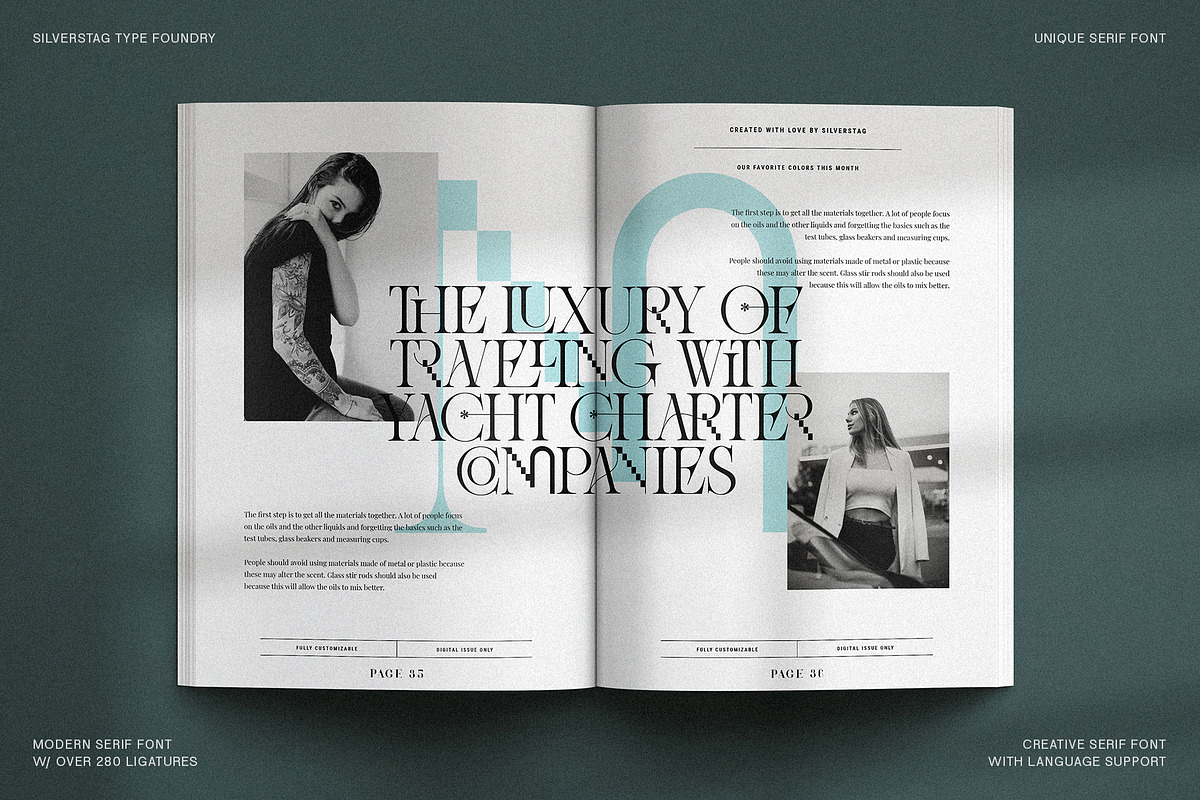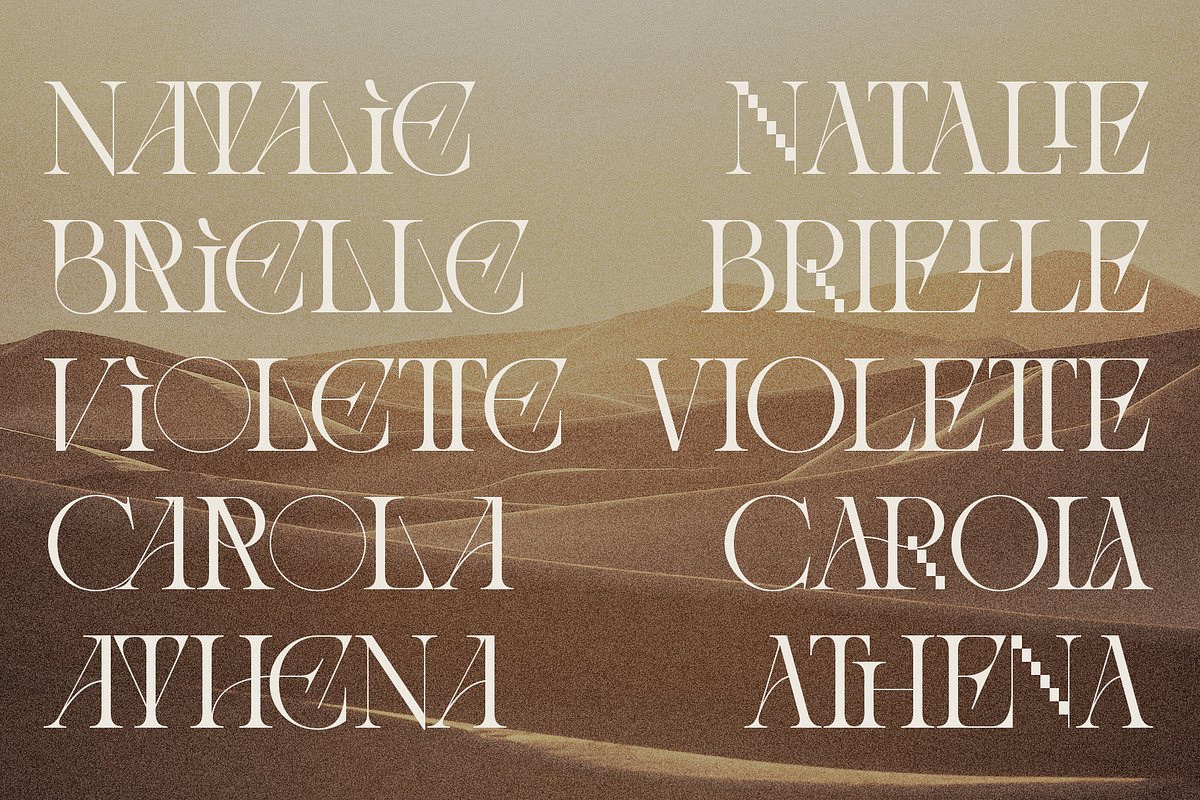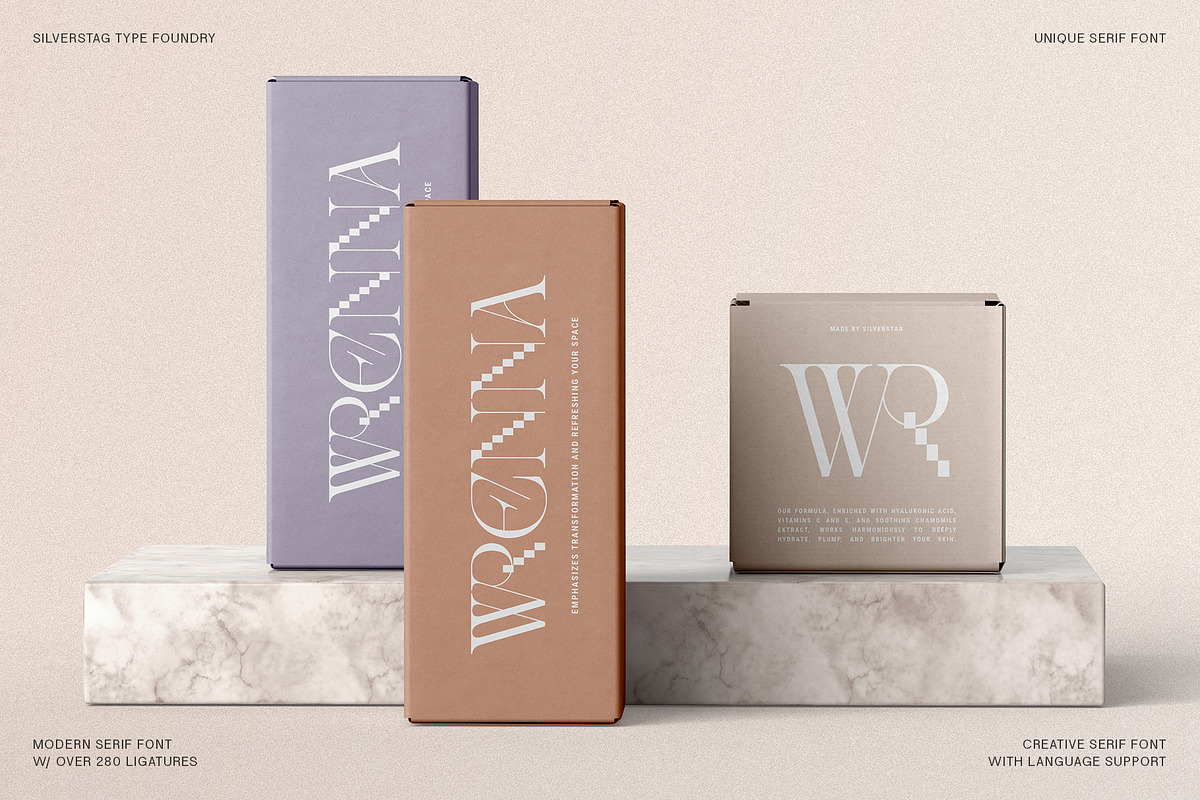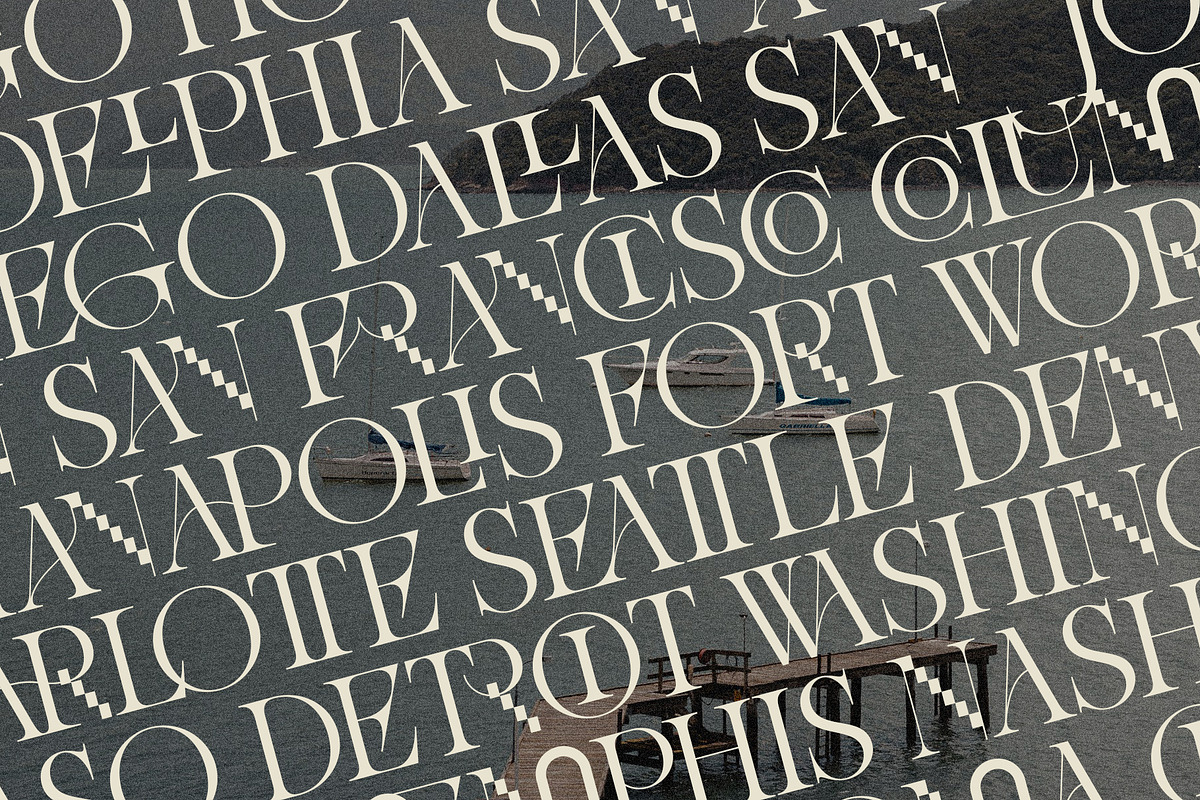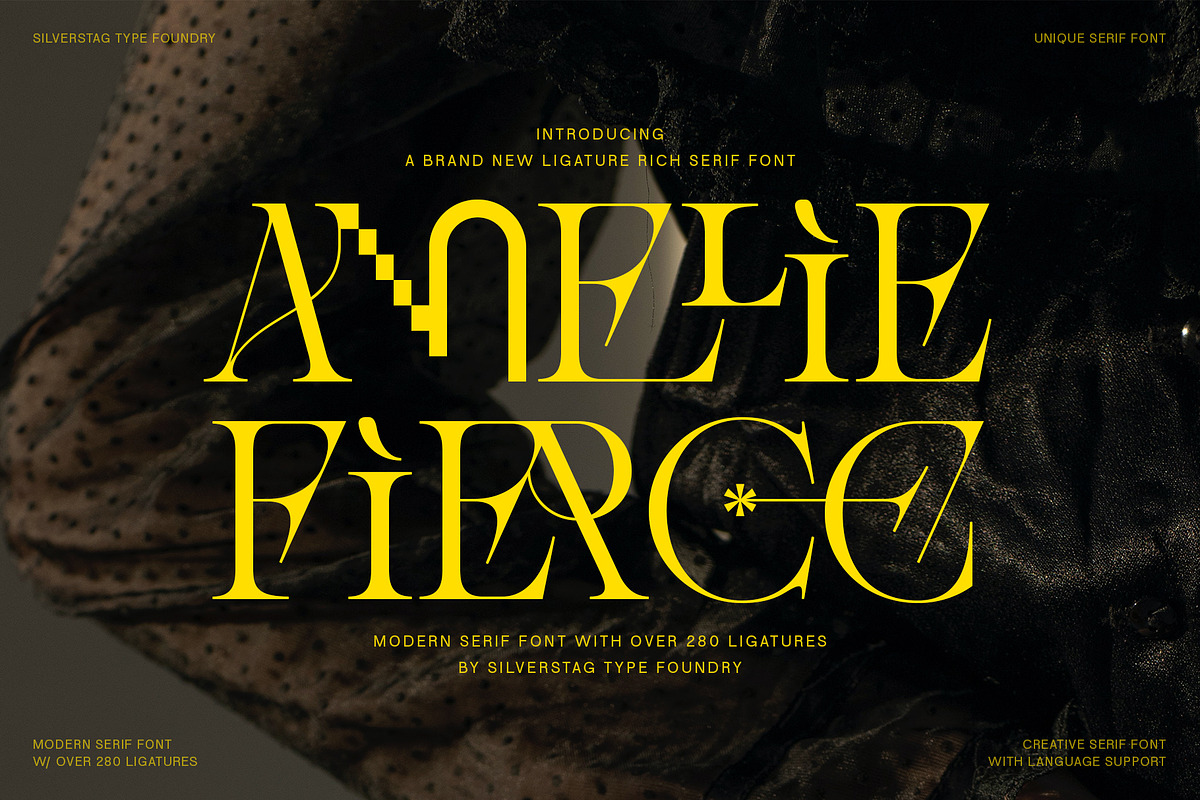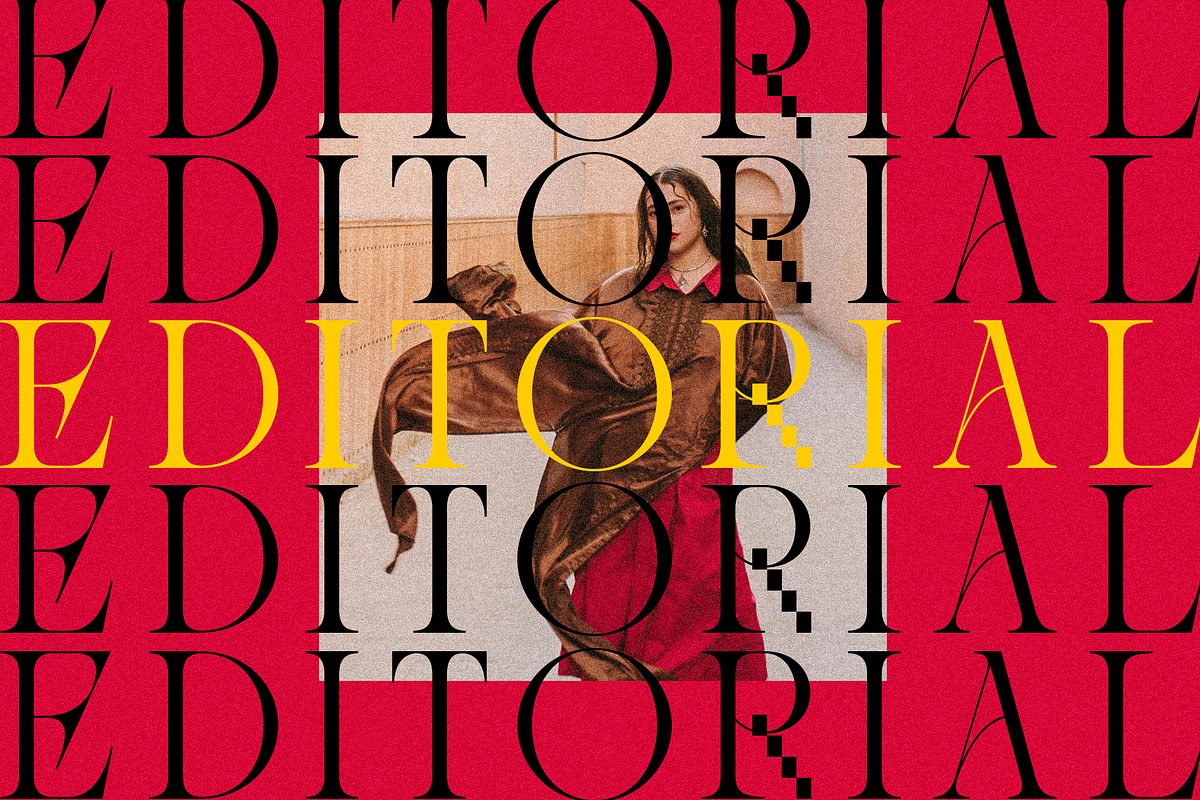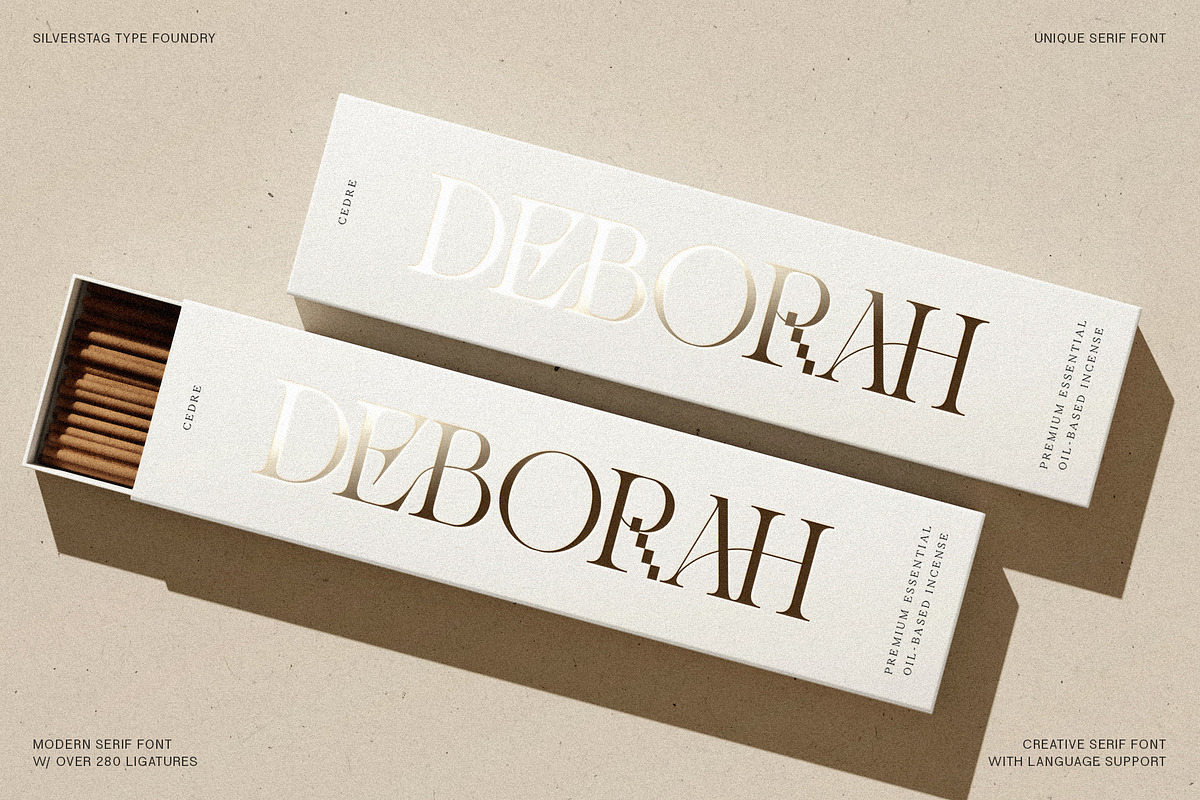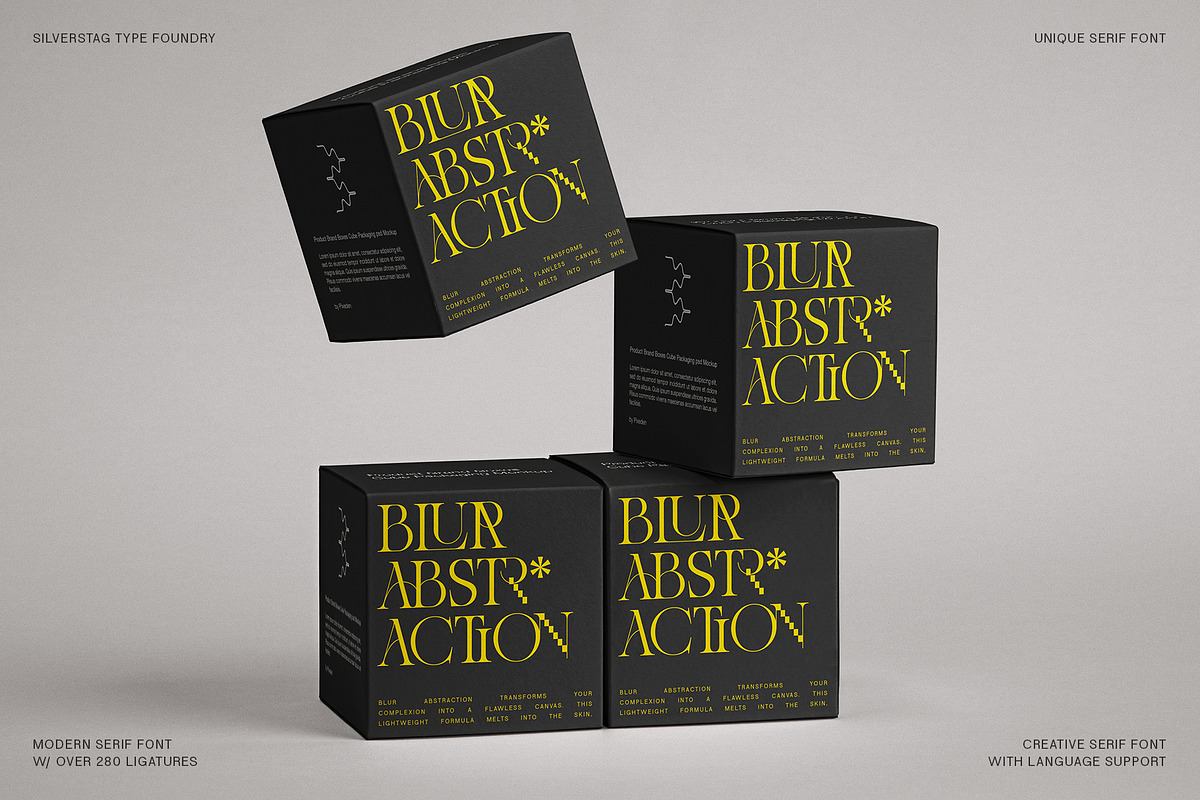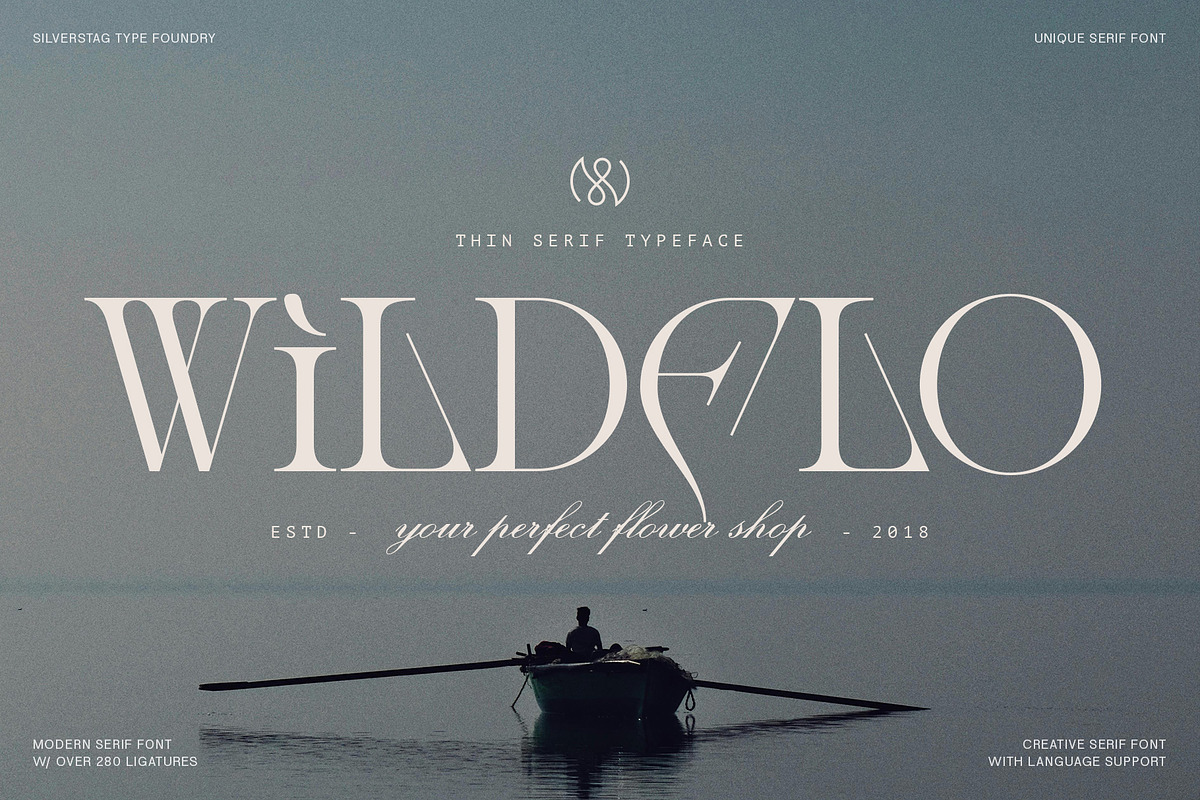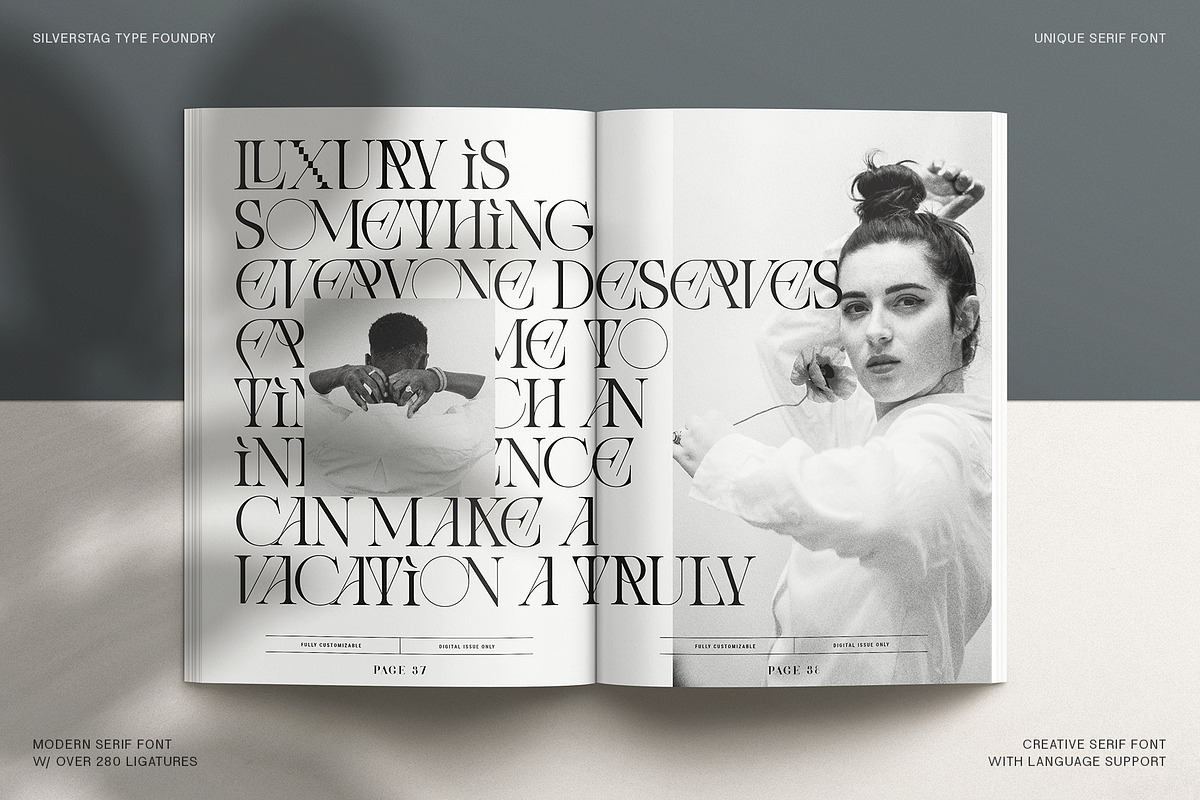
Amelie Fierce - Display Serif Font
Introducing Amelie Fierce: Where Editorial Elegance Meets Pixelated Edge
Embrace the unexpected with Amelie Fierce, a modern display serif that shatters the mold with over 280 unique ligatures. This typeface embodies a captivating blend of classic refinement and cutting-edge attitude. Think sleek serifs, graceful curves, and a dash of pixelated rebellion. It's a font that demands attention while retaining an air of timeless sophistication.
Key Features to Unleash Your Creativity:
- Over 280 Ligatures: Unlock a world of typographic possibilities! Amelie Fierce's extensive ligature collection transforms standard letter pairings into dynamic, eye-catching elements.
- Pixelated Extravagance: Add a touch of digital rebellion with the unique pixelated letter features. Perfect for bold headlines, logos, and designs that crave a touch of the unexpected.
- Editorial Flair: Amelie Fierce was designed with editorials, fashion layouts, and luxury branding in mind. Its high-contrast strokes and elegant details exude a sense of modern sophistication.
- Global Reach: With support for over 90 languages, Amelie Fierce ensures your message resonates across borders.
Where Amelie Fierce Shines:
- High-Fashion Branding: Elevate logos, packaging, and campaigns with a touch of editorial edge.
- Unforgettable Headlines: Make a statement with headlines that refuse to be ignored.
- Trendsetting Design: Infuse websites, social media graphics, and apparel with a modern, fashion-forward feel.
- Artistic Posters & Invitations: Create striking posters and invitations that blend elegance with a touch of unexpected edge.
- Bold Book Covers: Design covers that catch the eye and hint at the captivating story within.
- Unique Product Packaging: Make your products stand out on the shelf with packaging that exudes sophistication and a hint of rebellion.